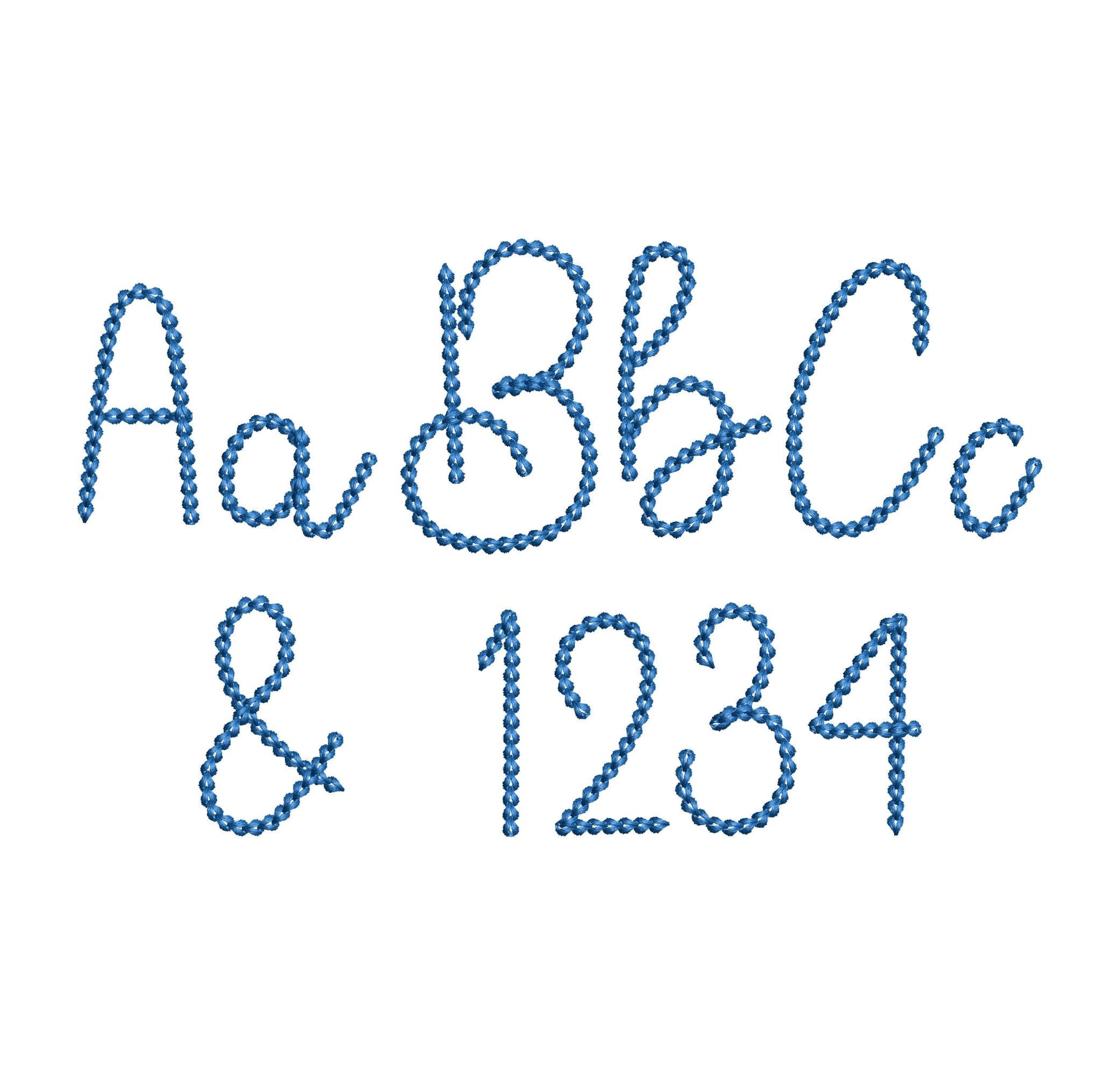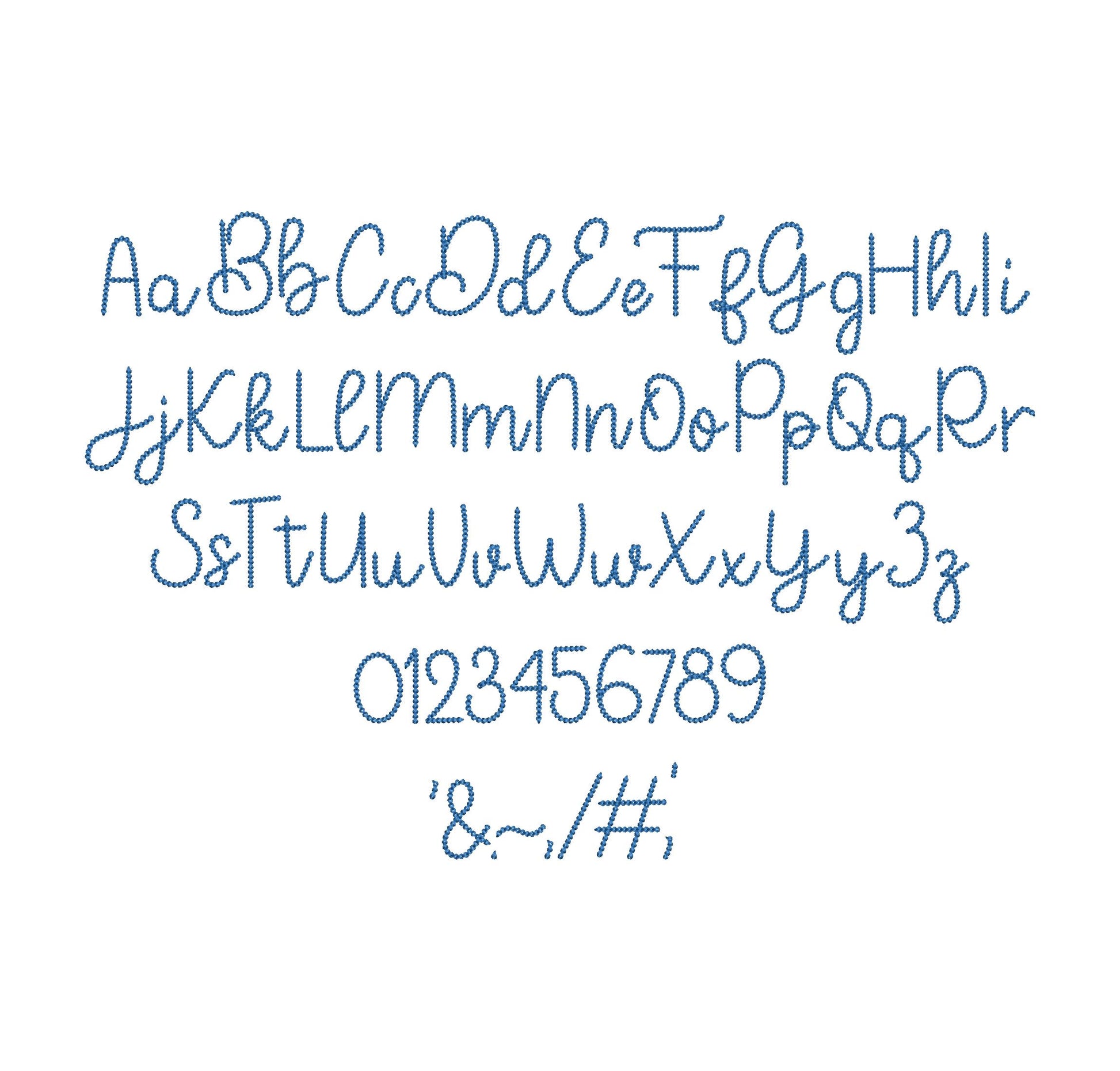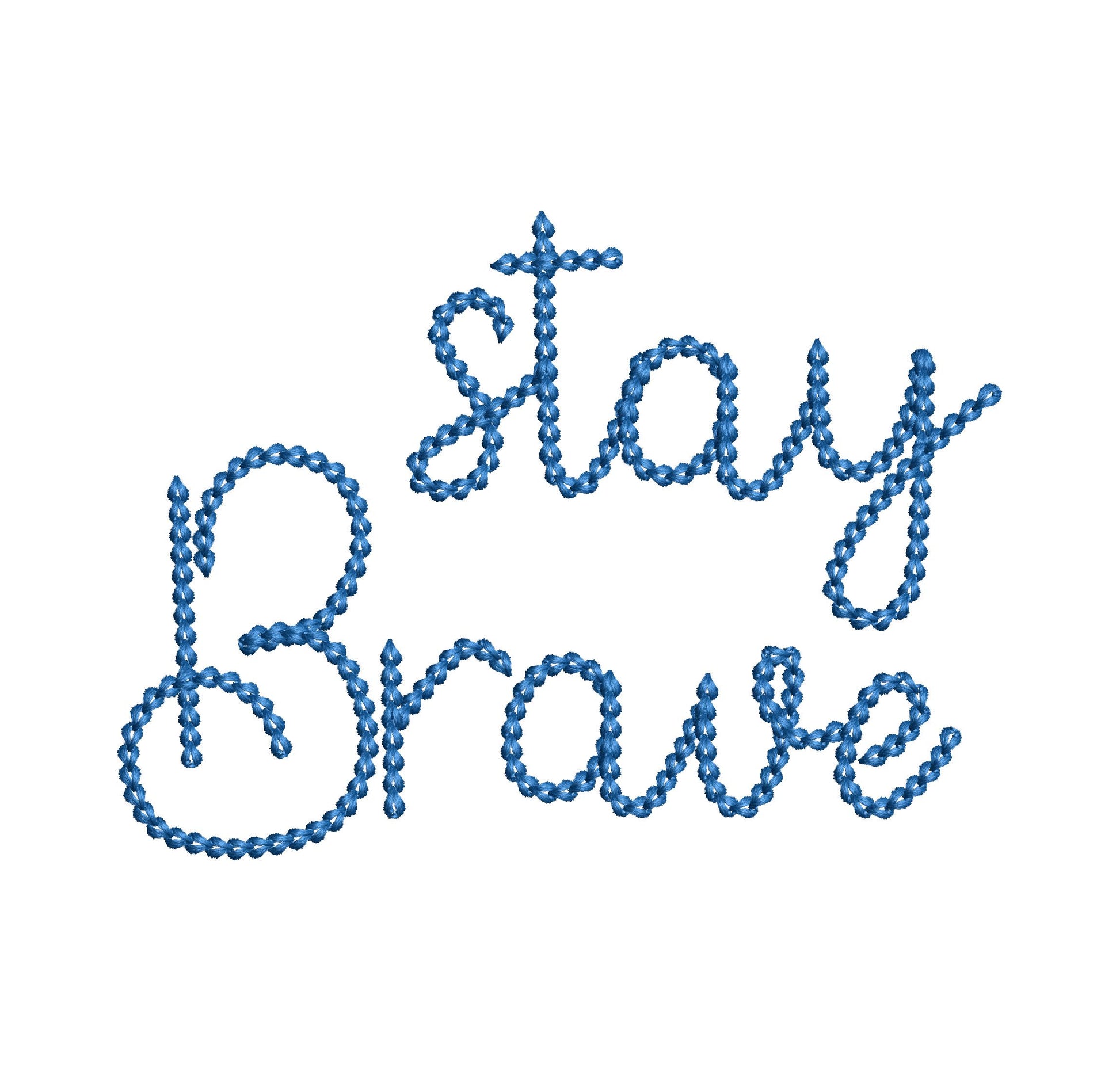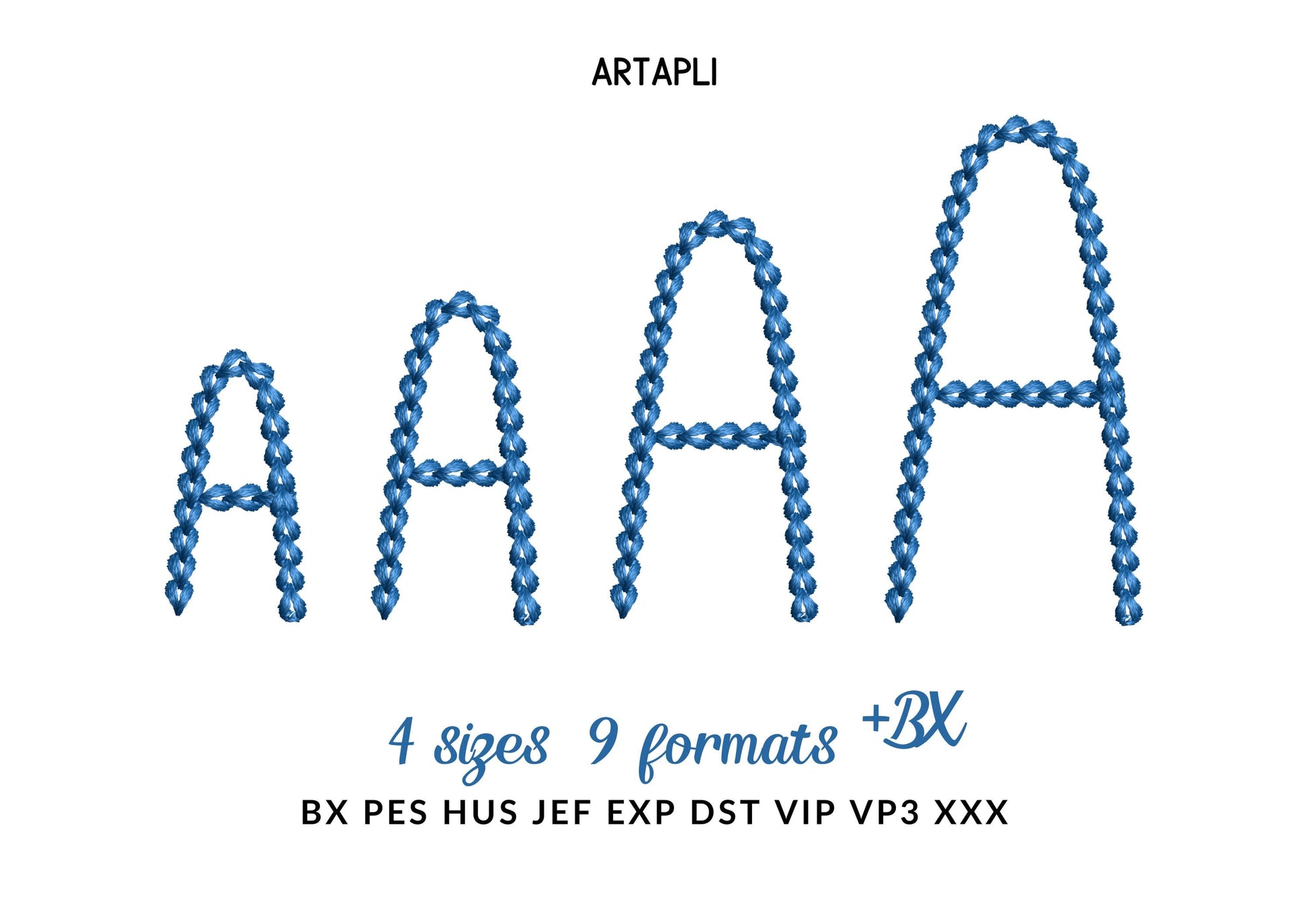
Bold Chain Font Barley
Or click to open the linkBarley is a bold handwritten chain stitch font with a cozy, hand-knit look. Great for names on sweaters, blankets, bags and gifts.
Bold chain stitch letters with a handmade, knit-sweater feel, in four sizes: 1.1, 1.3, 1.6 and 2 inches. Uppercase and lowercase letters A-Z, numbers 0-9 and punctuation.
- Bold chain stitch alphabet, uppercase and lowercase A-Z
- Numbers 0-9 and punctuation
- 4 sizes, 1.1 to 2 in